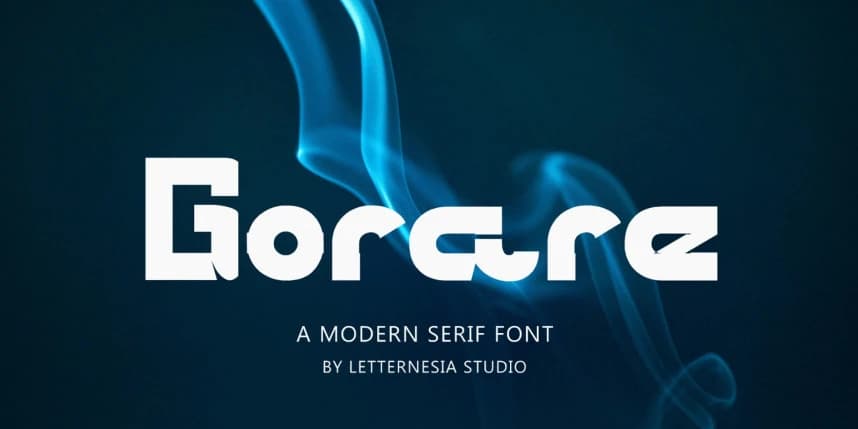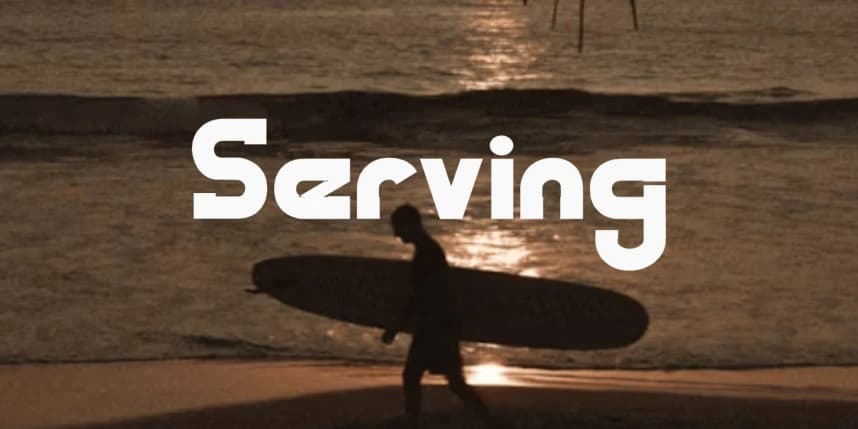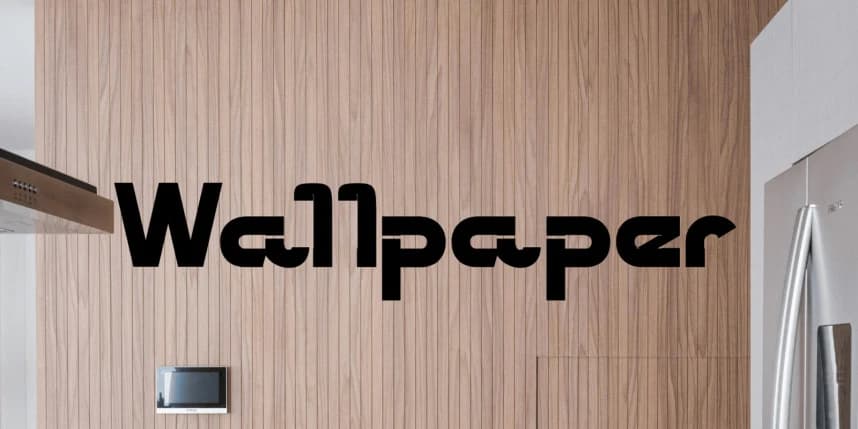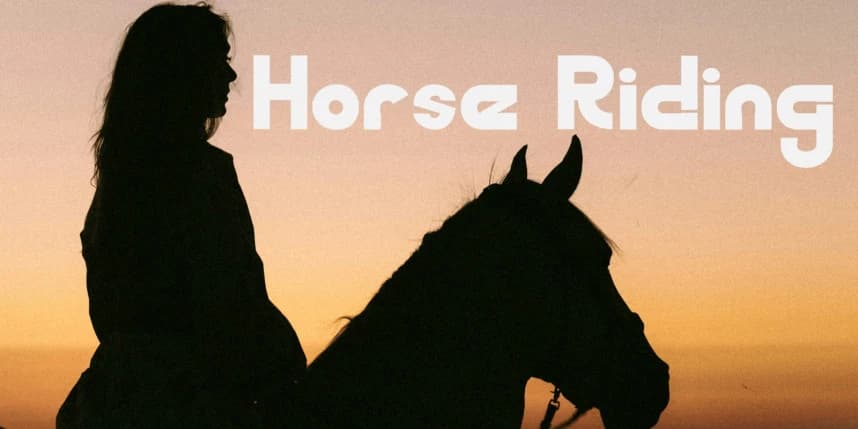
Gorare Font
Gorare Font is a modern display font that blends geometric strength with a touch of futuristic elegance. Inspired by the fusion of the words “GoCar” and “Rare”, this font is crafted to convey speed, exclusivity, and bold visual identity.